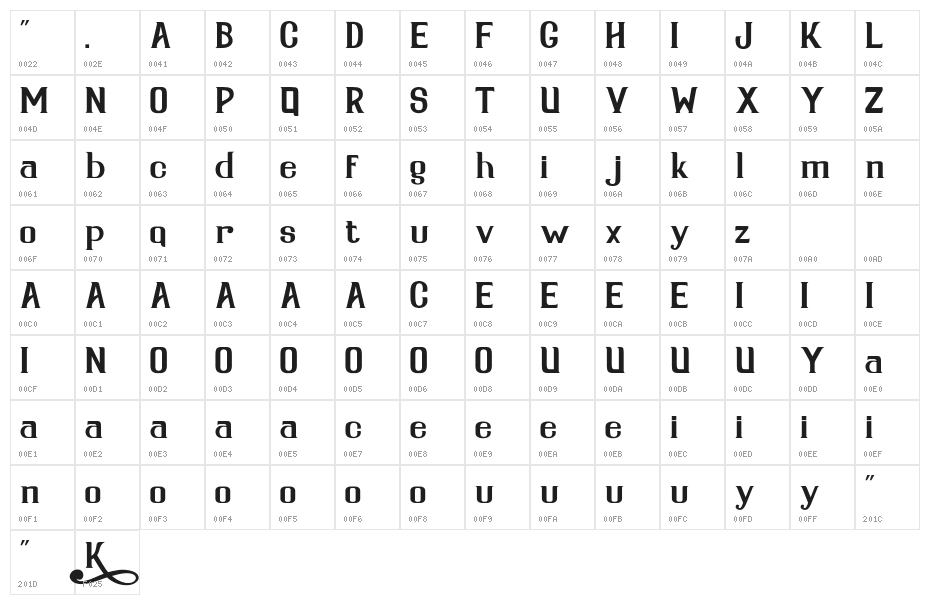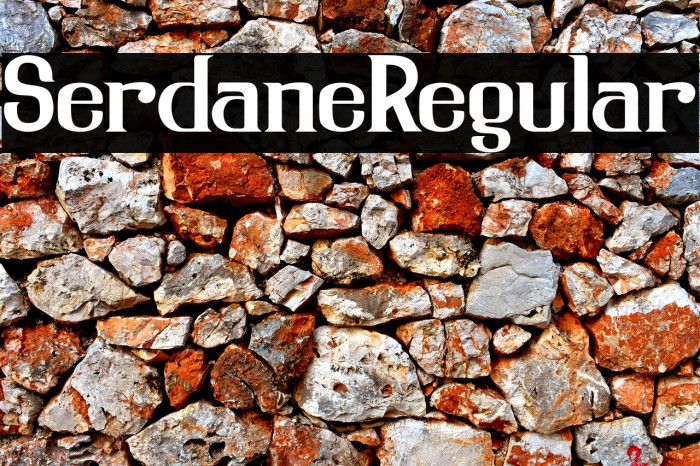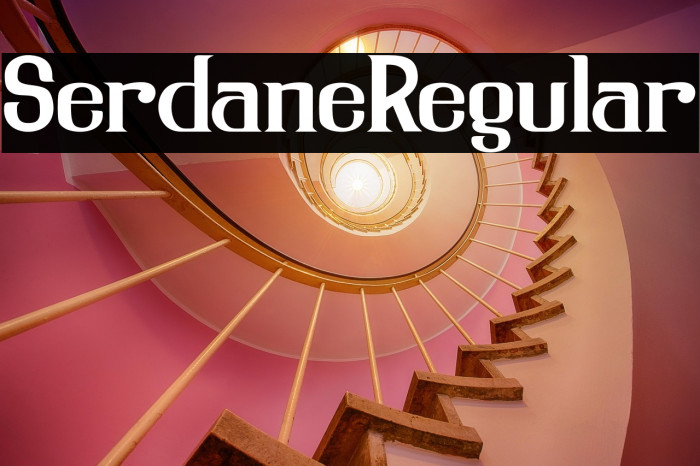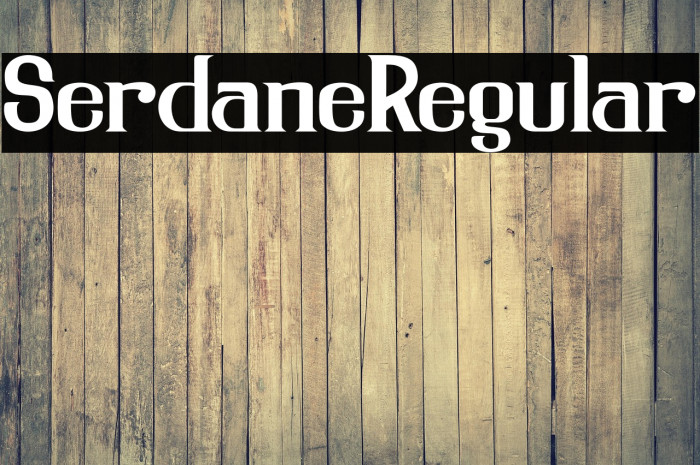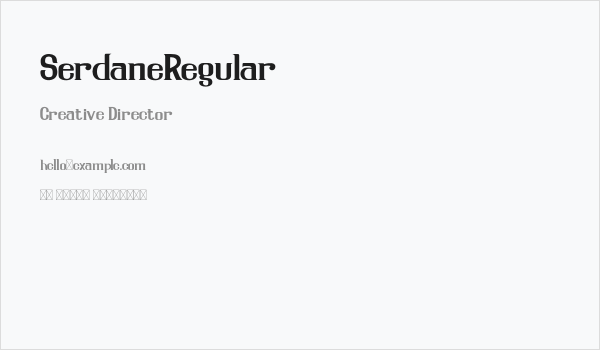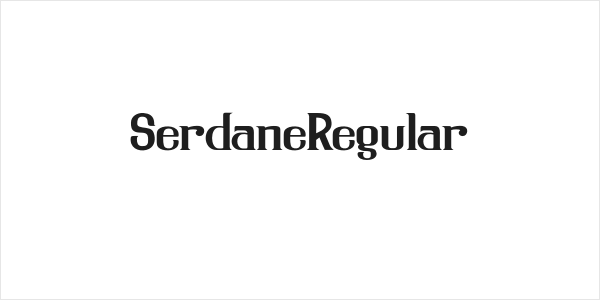
SerdaneRegular Font
SerdaneRegular Description
This font features a bold and striking design with a modern twist. The uppercase letters are characterized by their strong, angular lines and slightly condensed form, giving them a powerful presence. The lowercase letters maintain a consistent style, with rounded edges that soften the overall look while still retaining a sense of authority. The font's unique style is further emphasized by its high contrast in stroke thickness, which adds a dynamic and eye-catching quality. The spacing between characters is normal, allowing for readability while maintaining its bold aesthetic. This font is ideal for projects that require a strong visual impact, such as headlines, posters, and branding materials.
Proposed ProjectsIdeal for headlines, posters, branding, and any project needing a strong visual impact.